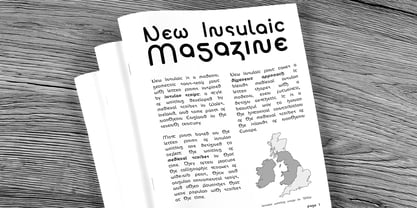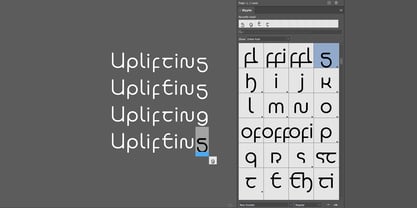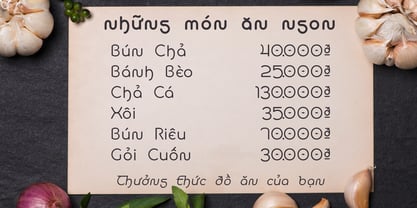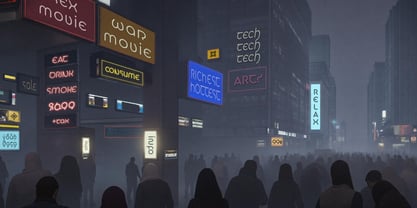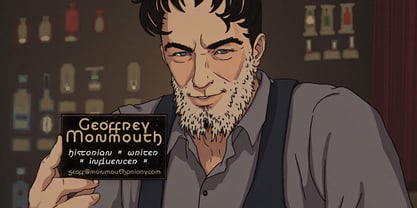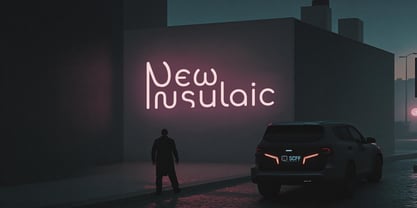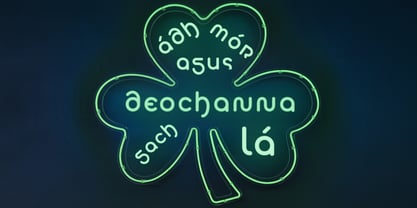
New Insulaic
New Insulaic is a modern, geometric sans-serif typeface that uses letter forms inspired by so-called “insular” script: the writing developed by medieval scribes in England, Ireland, and Wales in the seventh century. Most fonts based on insular writing are designed to reflect that time period: they feature calligraphic wide-nib strokes and heavy angular serifs; they often include decorative flourishes popular with scribes at the time. New Insulaic takes a different approach by blending medieval insular lettering with a modern, even futuristic, design aesthetic.
New Insulaic combines the rounded shapes of medieval works like the Book of Kells with the clean lines and geometric design of modern and futuristic fonts. It is an artistic font that can be used in any context where design and aesthetics matter. However, its lettering suggests another layer of meaning as well. New Insulaic is a font that imagines an alternate history, and a world where typography evolved directly from the island writing culture of northern Europe. This makes it a perfect choice to enrich your fantasy and science fiction worldbuilding.
Language Support
New Insulaic includes a complete set of unusual and accented Latin letters in order to support the widest range of non-English Latin script languages. Check out our sample images to see how it looks for writing Irish (Gaeilge) and Vietnamese!
OpenType Features
New Insulaic includes form variant features for superscripts, subscripts, and small caps characters. Most advanced graphic design and desktop publishing applications will also let you select from a number of standard ligatures, discretionary ligatures, and stylistic alternates for certain letters. For example, both "g" and "t" have alternative glyphs that look more like the standard forms of these letters, allowing you to select these in specific scenarios where it might improve readability.